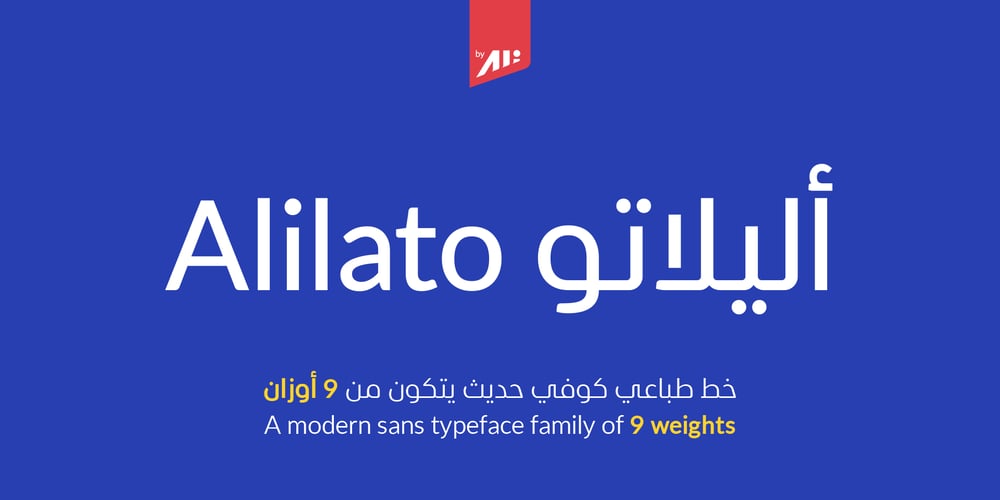
Alilato Arabic Font Family was designed by Ali Alattas and published by Alilato. Alilato Arabic contains 9 styles and family package options. Alilato is sans serif and it is a modern Arabic typeface family in 9 weights.Alilato is the perfect choice to use in both print and web applications, and alongside its matching Latin typefaces.